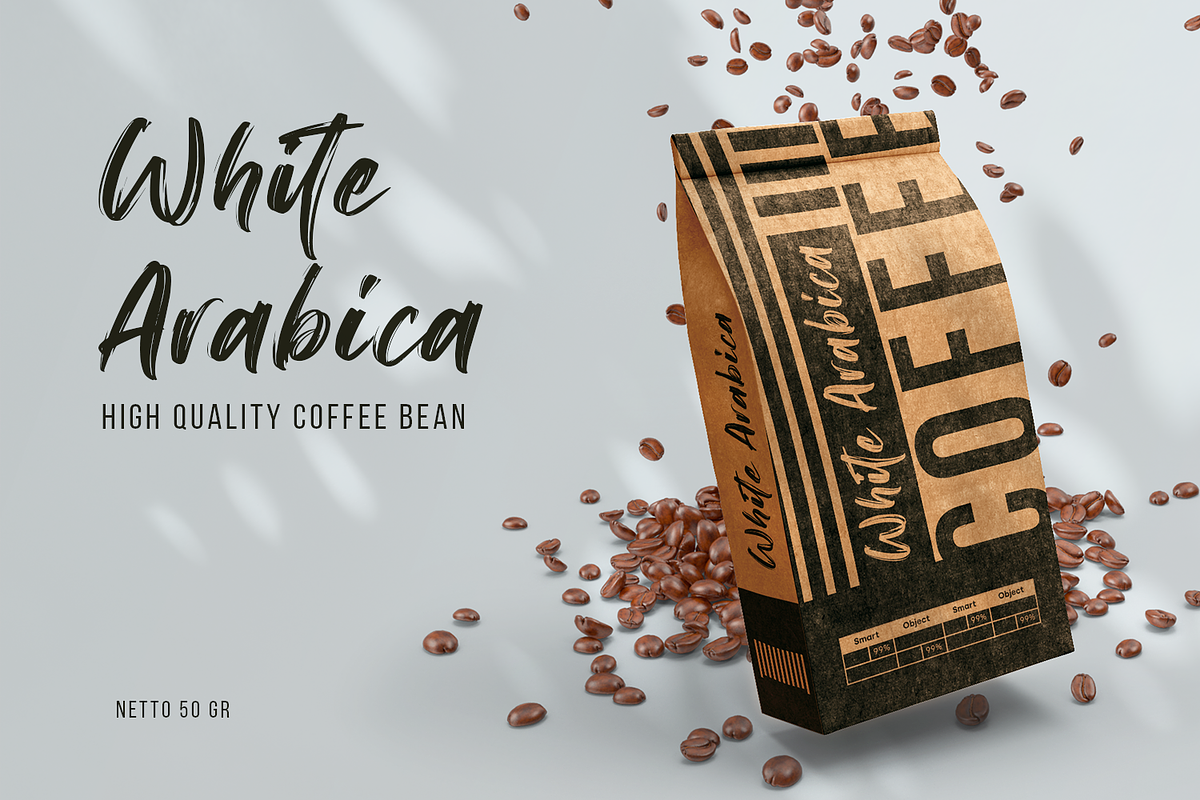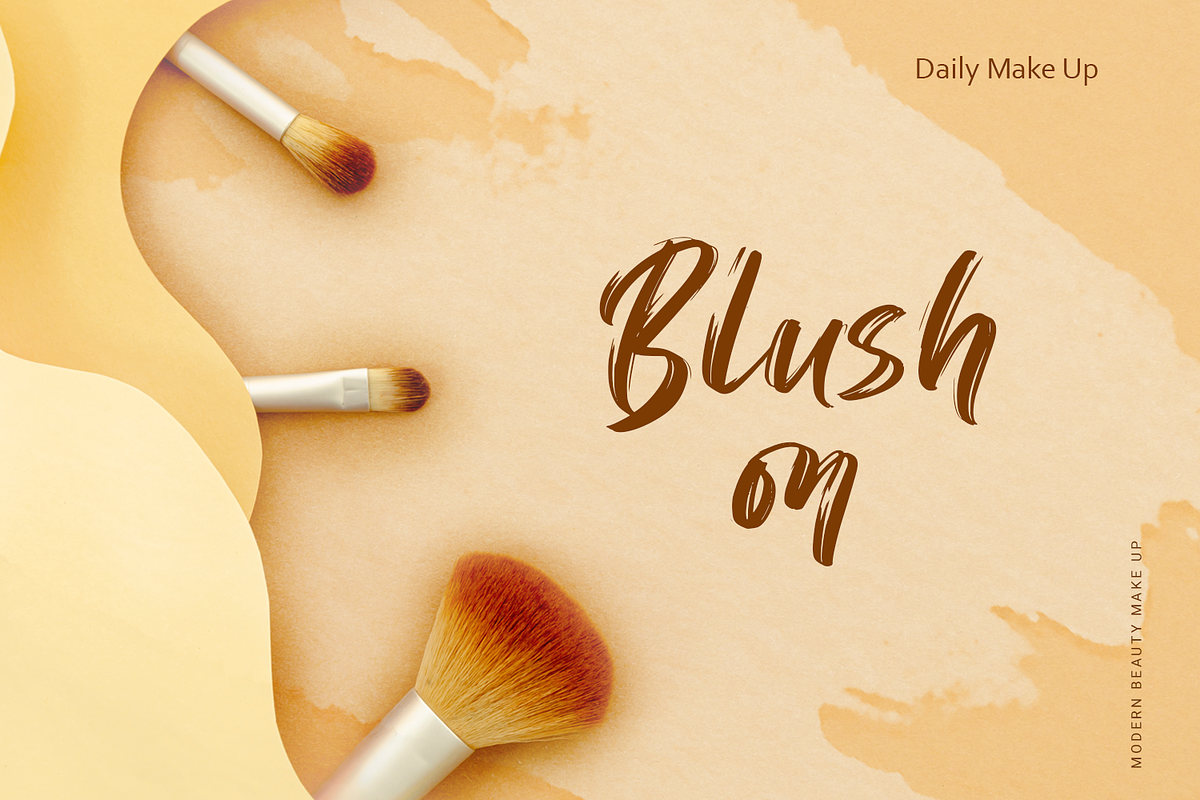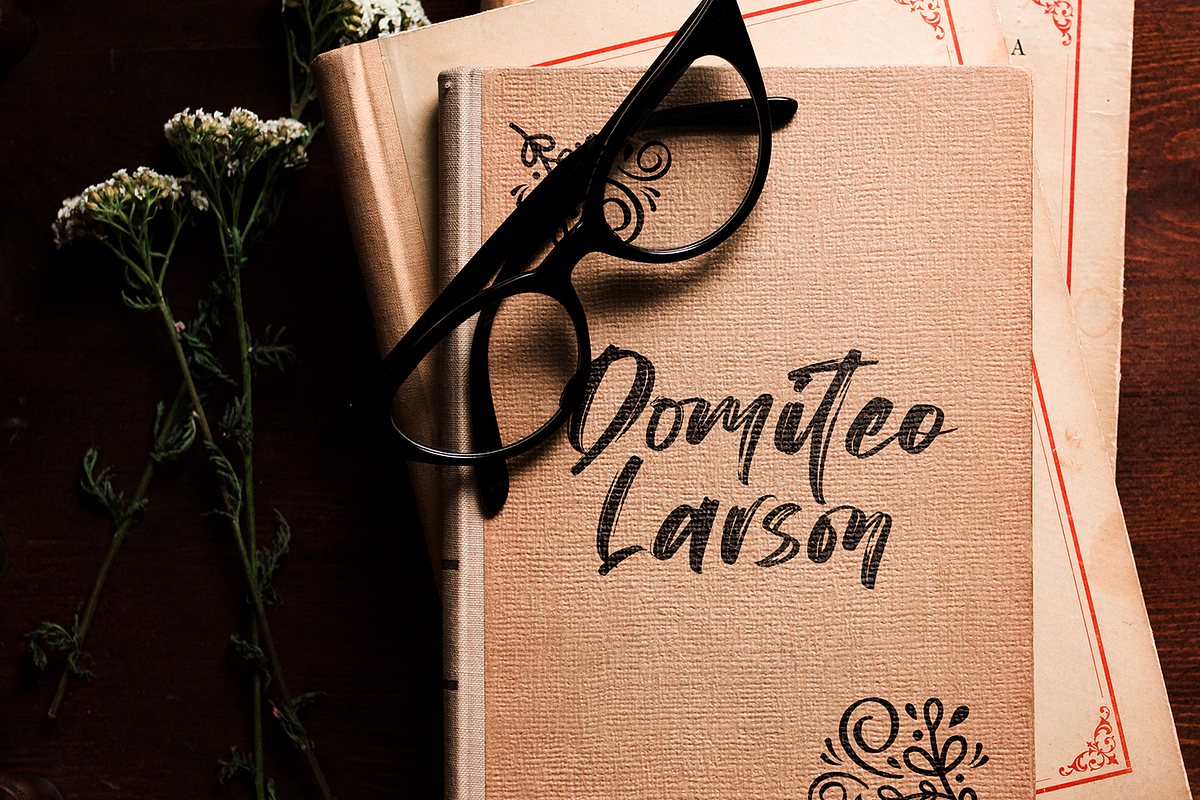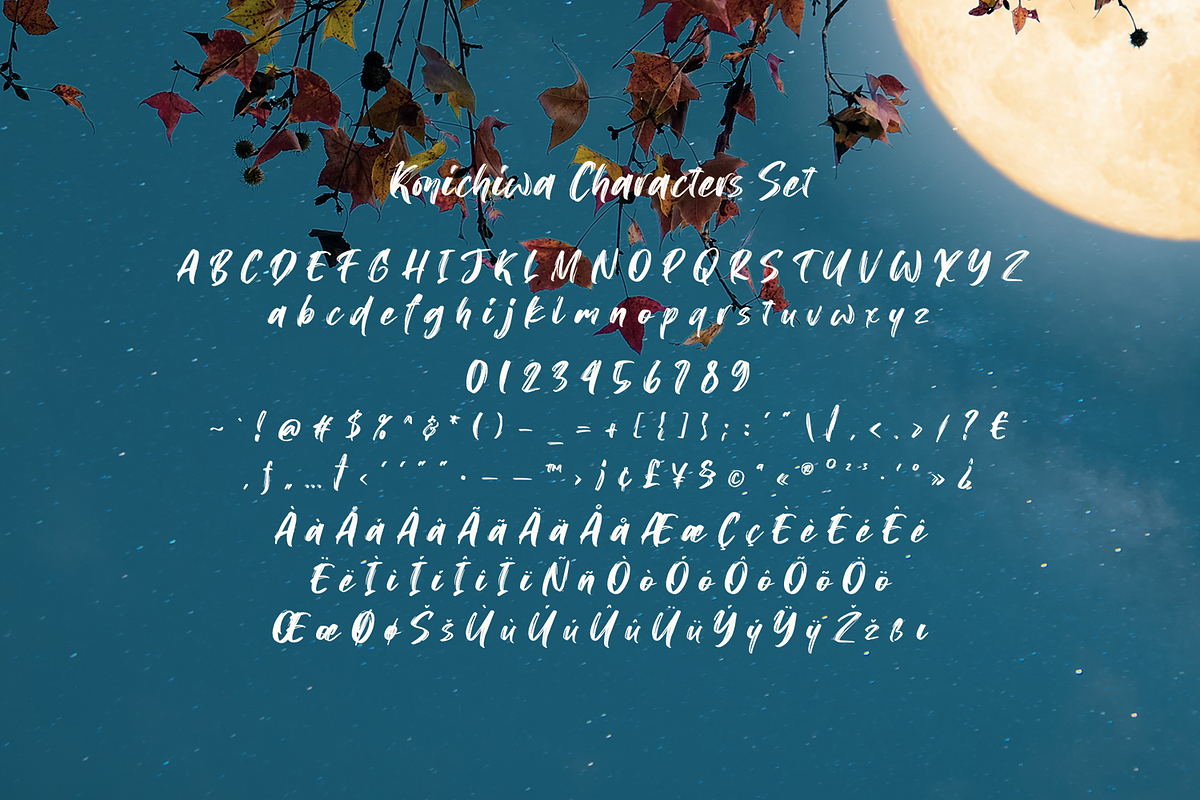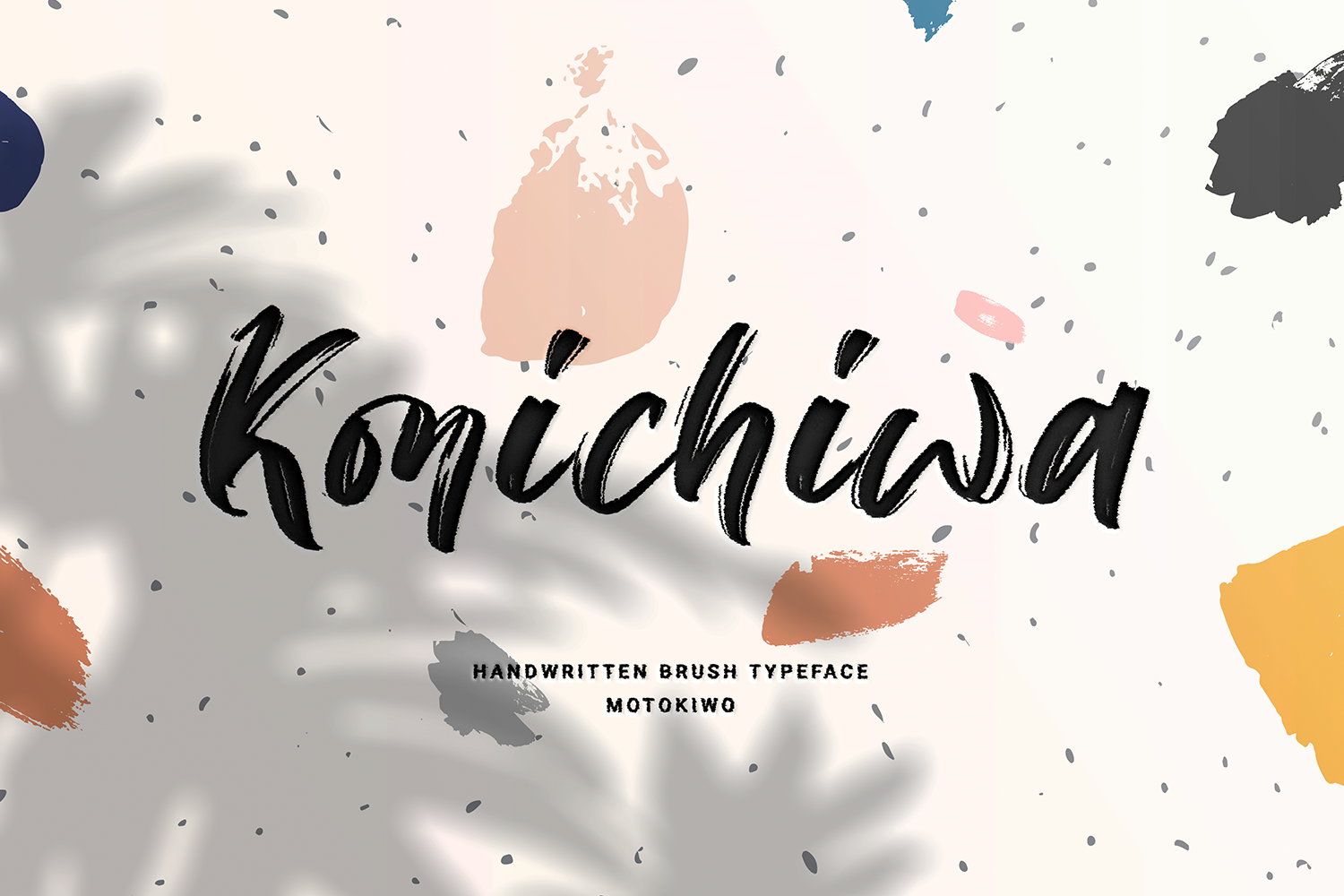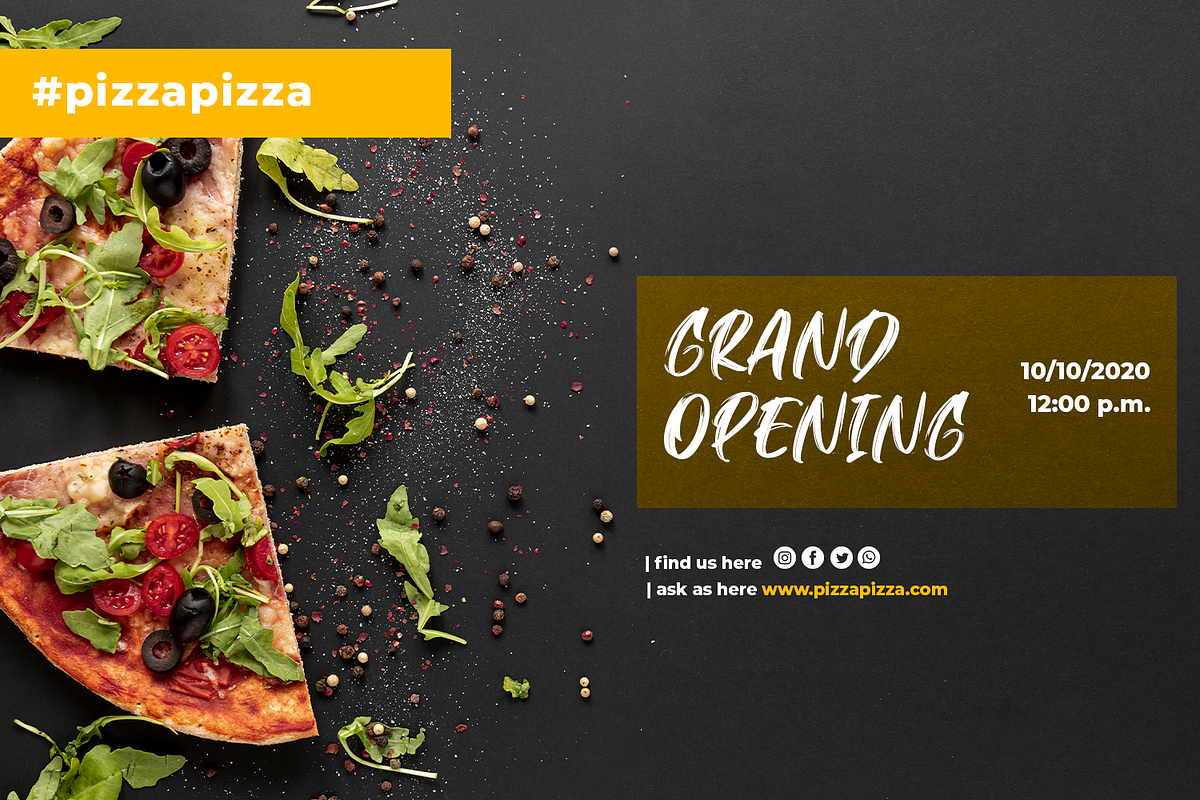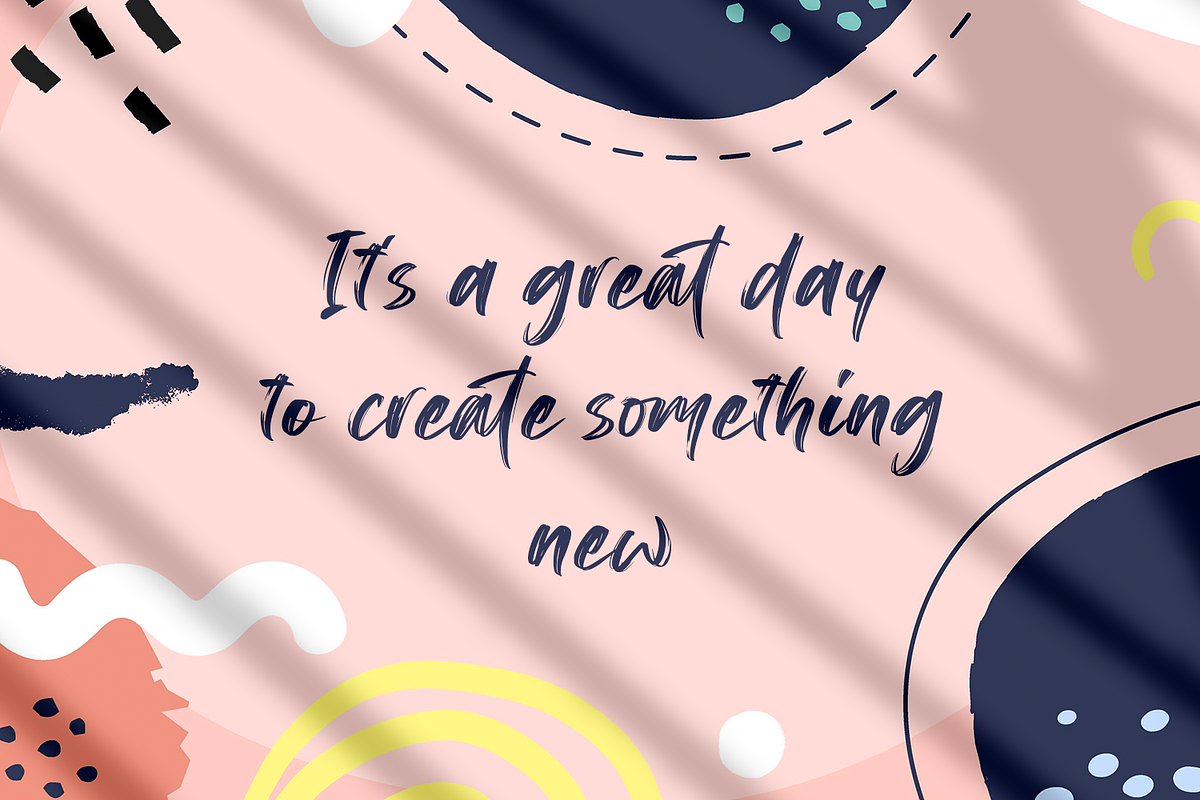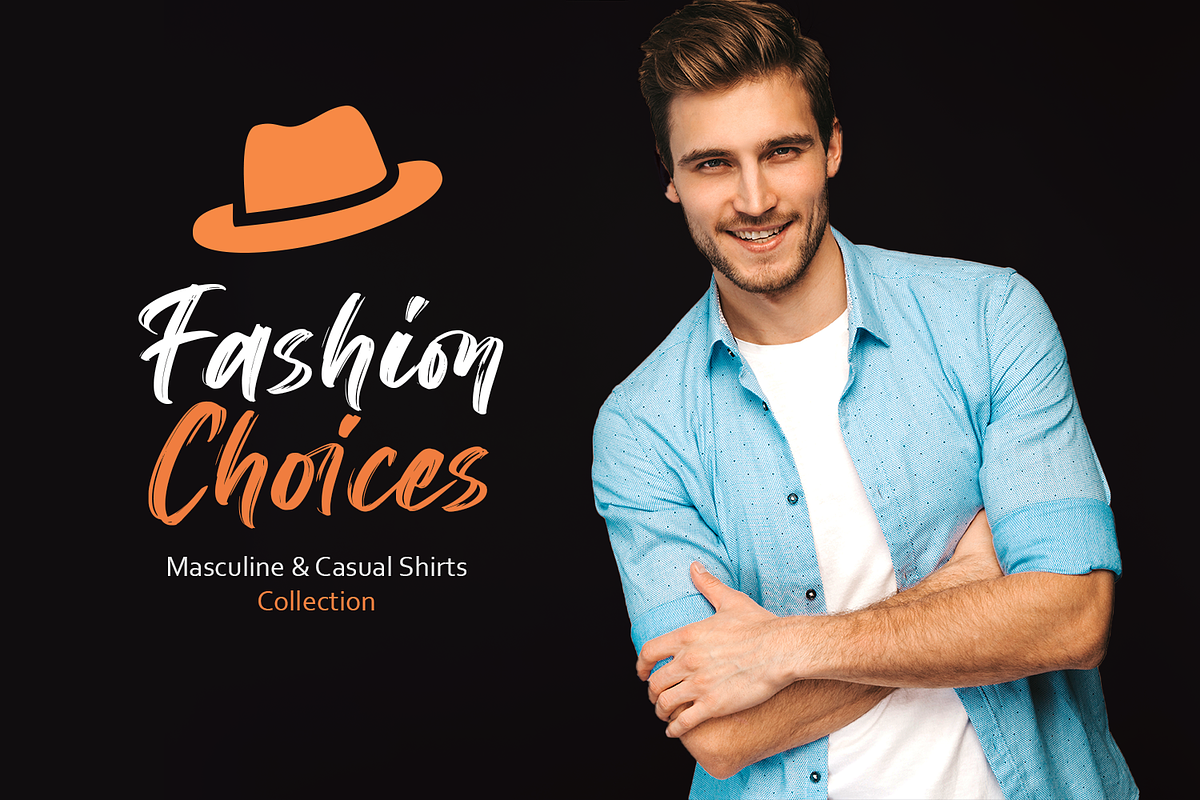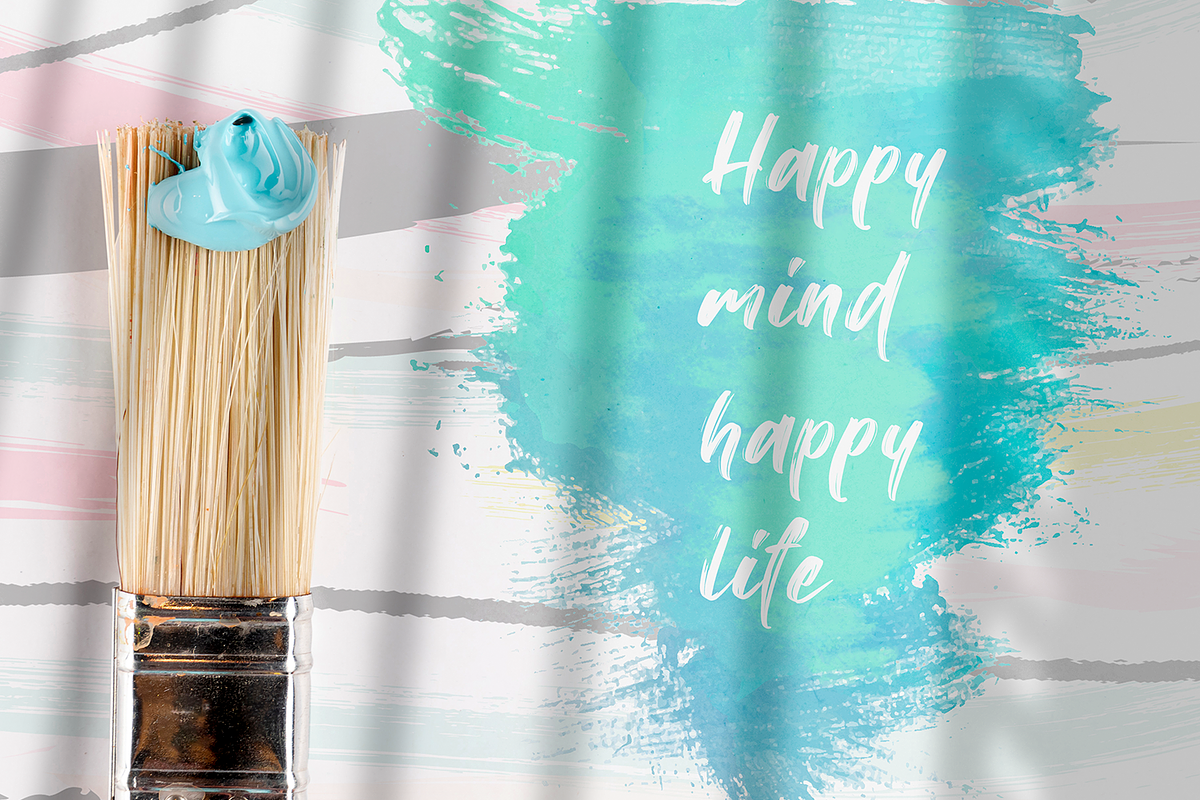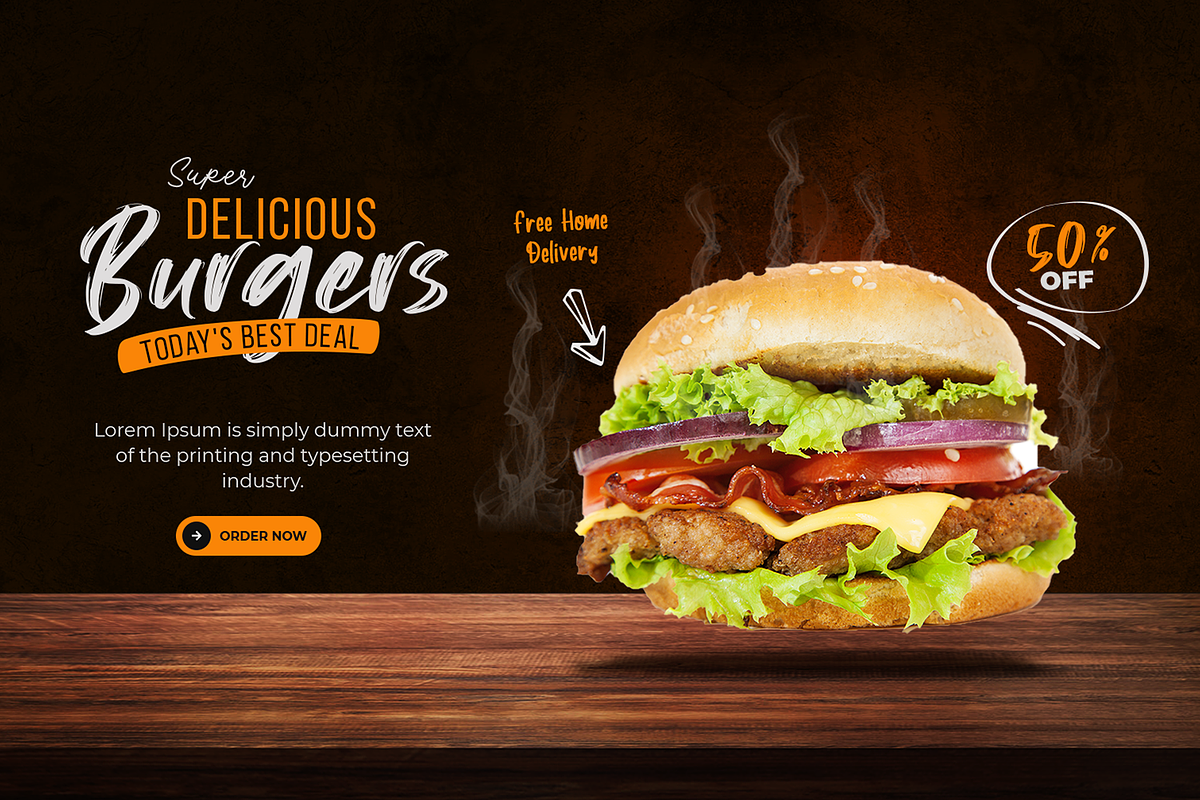
Konichiwa Handbrush Font
Brush textured with casual handwritten gesture, say hi to Konichiwa. This is hot and tasty font that very recommended for food branding such as Burger, BBQ, Coffee and Pizza. It's also great for fashion and cosmetic projects that need diversity.
- Standard Latin Multilingual Support